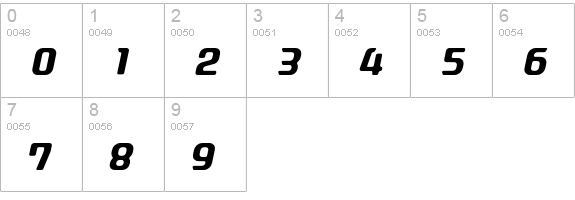
Stanley-AlphabetOblique Font Details
Stanley-AlphabetOblique font is a stunning and versatile typeface that exudes elegance and sophistication. Its sleek and slanted design adds a touch of modernity to any project, making it perfect for both print and digital applications. With its unique blend of sharp edges and smooth curves, this font captures attention and conveys a sense of dynamism. Featuring a wide range of characters, Stanley-AlphabetOblique font offers endless creative possibilities. Whether you're designing a logo, creating a poster, or even crafting a personal invitation, this font can bring your vision to life with its seamless integration and cohesive look. One of the best things about Stanley-AlphabetOblique font is that it is available for free download at FontsMarket.com. This means that you can easily access and utilize this font without any cost constraints. The creators of this font believe in the power of creativity and accessibility, and that's why they have made it freely available to everyone. Downloading Stanley-AlphabetOblique font from FontsMarket.com is a breeze. Simply visit the website, locate the font, and click the download button. Within seconds, you'll have this incredible typeface at your fingertips, ready to enhance your designs and make them truly exceptional. So whether you're a professional graphic designer or an enthusiastic hobbyist, Stanley-AlphabetOblique font is a must-have addition to your font library. With its captivating style and the freedom to use it without any limitations, this font is sure to elevate your design projects to new heights. Don't miss out on the opportunity to download this extraordinary font for free at FontsMarket.com and unleash your creativity today!